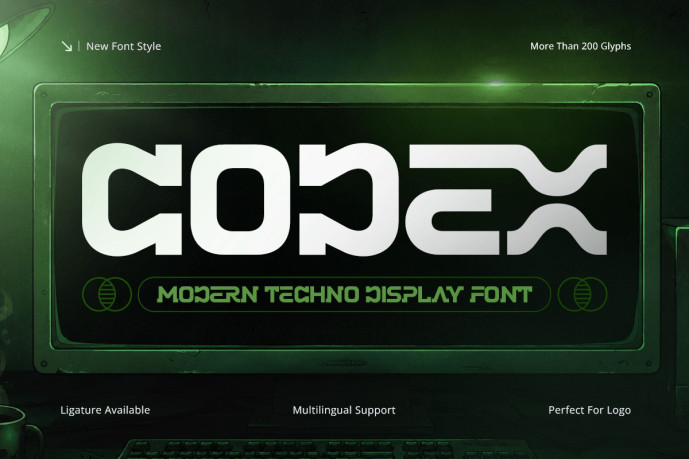
Codex – Modern Techno Display Font
Designer: Dareco Studio
Codex – Modern Techno Display Font is a futuristic display font designed for technology branding, gaming graphics, digital products, logo design, and innovative visual communication. Inspired by advanced technology, cyber aesthetics, and modern digital culture, Codex combines sharp geometric forms with a clean techno style to create bold and memorable typography.
Featuring precise angular letterforms, futuristic geometry, and a modern display structure, Codex delivers a striking visual identity that communicates innovation, speed, and technical excellence. Its versatile design is ideal for logos, headlines, branding systems, user interfaces, and promotional graphics that require a cutting-edge appearance.
Whether you’re building a technology startup, creating a gaming brand, designing digital marketing assets, or producing futuristic display graphics, Codex provides the high-impact typography needed to strengthen your creative vision.
Codex Font Features
Character Set: Uppercase, lowercase, numbers, symbols, and punctuation
Modern techno letterforms optimized for branding and display typography
OpenType features ready to enhance your design needs
Codex is Perfect For
Technology branding and startup identities
Futuristic logo and logotype design
Gaming and esports graphics
Digital products and user interface design
Website headers and digital campaigns
Marketing materials and promotional graphics
Contemporary display typography
Innovation-focused visual identity systems
Whether you’re creating a technology logo, developing a digital brand, building a gaming identity, or designing futuristic marketing materials, Codex delivers the innovation, precision, and modern appeal of a techno display font built for next-generation branding.